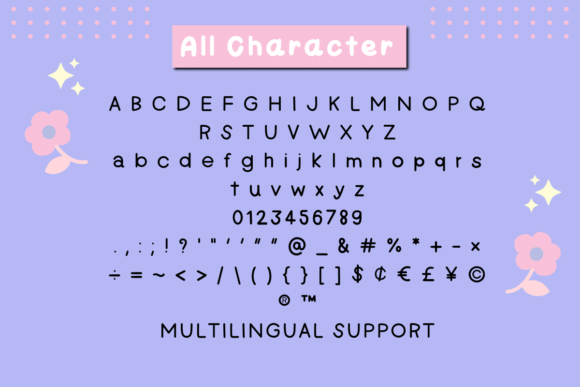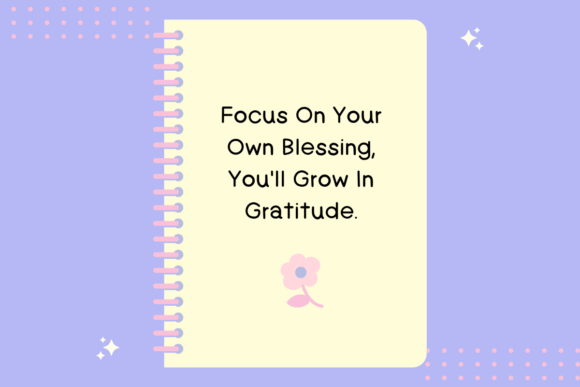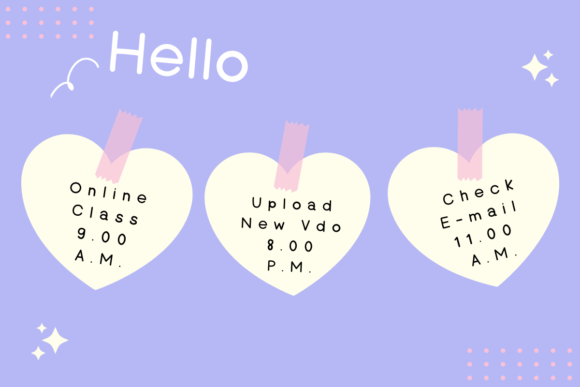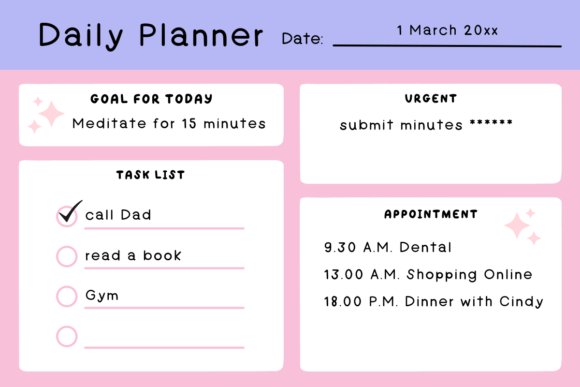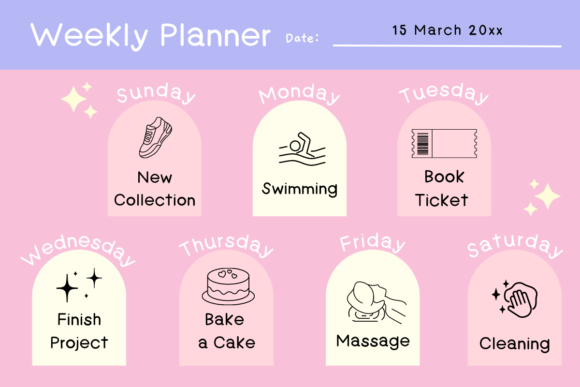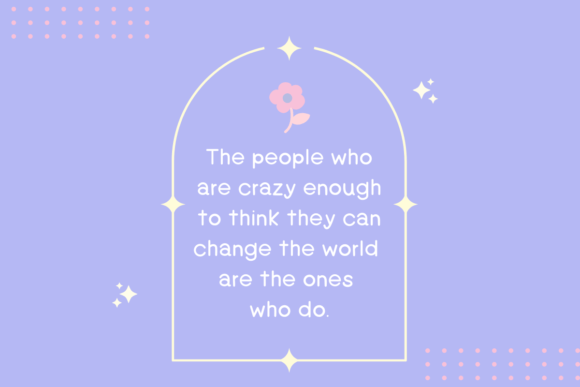
Discovering the Perfect Font for Your Daily Notes
As a creative person, there’s nothing quite like the feeling of brainstorming ideas, jotting down notes, and watching a project come together. It’s a moment of pure inspiration, where the possibilities seem endless and anything feels possible. And for many of us, that moment often begins with a simple notebook and a trusty pen. But what if you could elevate that experience with a font that not only makes your notes look great but also inspires you to be more creative?
Enter the Daily Note Neat Handwritten Font, a charming typeface designed to capture the essence of neatness and approachability. Its purpose is simple: to make your daily notes look and feel great, while still conveying a sense of friendliness and approachability. And for designers, the Daily Note Font is a valuable tool that can add a personal touch to any project, from editorial design to branding and beyond.
Daily Note Font Key Features
- Character Set: The font features a comprehensive character set, including Latin, Cyrillic, and Greek alphabets, as well as punctuation and special characters, making it suitable for multilingual applications.
- Font Size and Resolution: Daily Note Font is designed to be highly legible at various font sizes, from 8pt to 48pt, and is optimized for resolutions up to 300 DPI, ensuring clear readability on screens and print materials.
- Unique Characteristics: The font features a distinctive, modern design with subtle rounded edges and a clean, minimalist aesthetic, making it perfect for everyday notes, journaling, and creative writing.
- Font Weight and Style: Daily Note Font comes in three weights: Light, Regular, and Bold, allowing users to customize the font’s appearance to suit their needs and preferences.
- Scalability: The font is designed to be highly scalable, ensuring that it remains legible and clear even at very large or very small font sizes, making it ideal for digital applications, such as e-readers and mobile devices.
Daily Note Font Review
Overall, I’m quite impressed with Daily Note Font, and here’s why: ✨ It’s clean and simple, making it perfect for everyday note-taking. ✨ The font is highly legible, even at smaller font sizes. ✨ The design is minimalistic, which makes it easy on the eyes and reduces visual clutter. ✨ It’s also highly customizable, allowing users to adjust the font size, color, and style to suit their needs.
However, there are a few limitations I’d like to point out: ⚠️ The font is not ideal for longer documents or articles, as it can become a bit too plain. ⚠️ Some users may find the font too monotonous, as it lacks bold or italic variations. ⚠️ It’s also not suitable for formal or professional settings, as it’s more geared towards casual note-taking.
Overall, I think Daily Note Font is a great choice for everyday note-taking, but it may not be the best option for more formal or complex writing tasks.
Key Features:
- Clean and simple design
- Highly legible even at smaller font sizes
- Minimalistic design reduces visual clutter
- Highly customizable
- Not ideal for longer documents or articles
- Lacks bold or italic variations
- Not suitable for formal or professional settings
The Daily Note Font is ideal for creating digital journals, planners, and notebooks. It’s also great for adding a personal touch to presentations, reports, and other documents.
Some common use cases include:
- Digital journaling
- Planner and notebook design
- Presentation design
- Report writing
To get the most out of the Daily Note Font, experiment with different font sizes, colors, and styles to create a unique and visually appealing design.
Q: Is Daily Note Font compatible with right-to-left languages?
Yes, Daily Note Font is designed to be compatible with right-to-left languages, including Arabic, Hebrew, and Farsi. The font includes a comprehensive set of language-specific glyphs and OpenType features to ensure proper rendering and formatting of text in these languages.